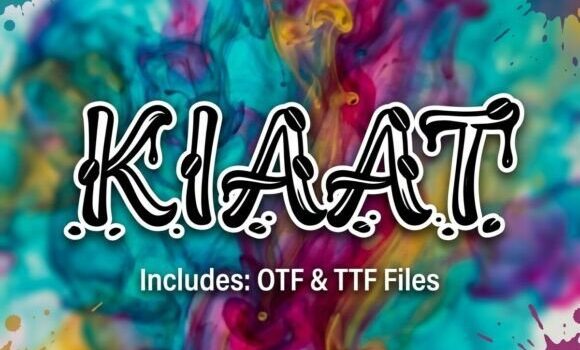
Kiaat Font – Free Download Introduction to Kiaat Font Indulge in a sensory experience with Kiaat, a fluid display typeface that captures a “viscous-and-aromatic” soul. 📸 Preview Gallery 2 images 📌 Product Name Kiaat Font 👤 Author lawboomer 📂 Category